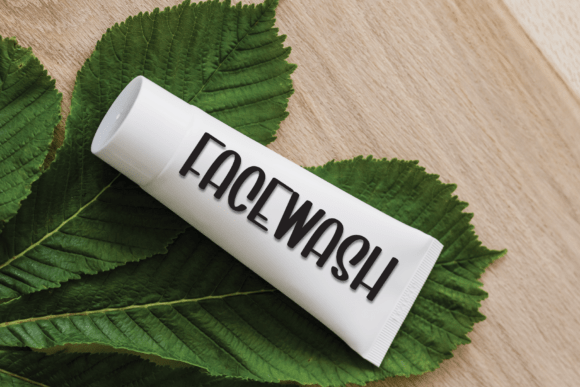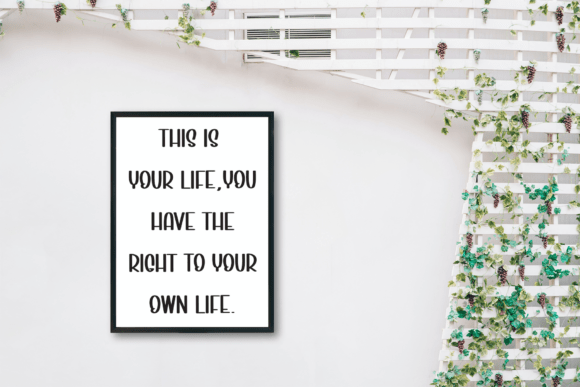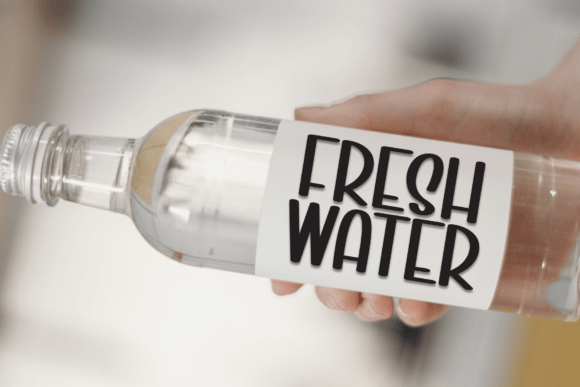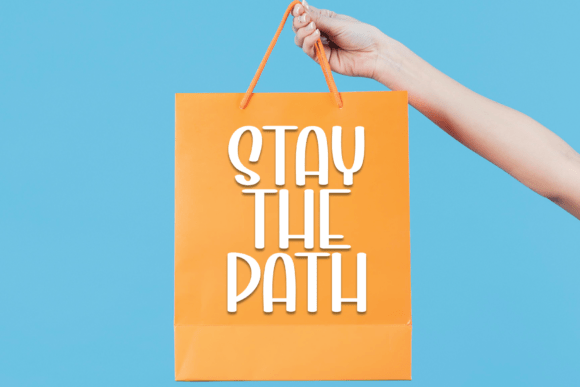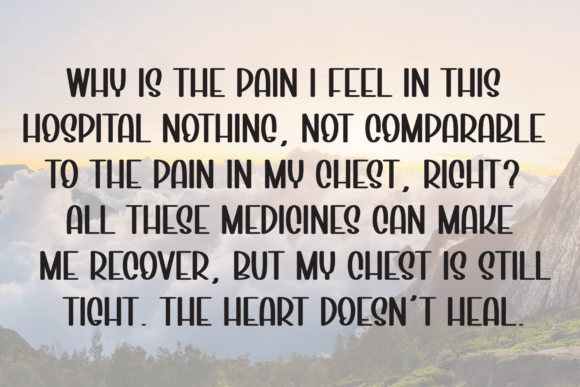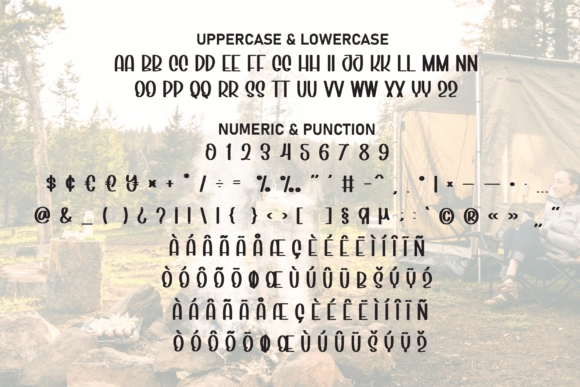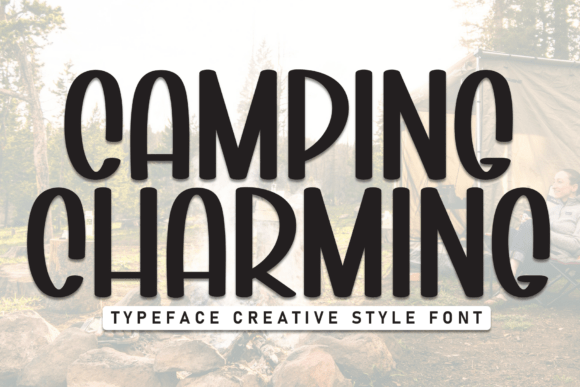
Camping Charming Font: A Bold and Expressive Display Font
Are you looking for a font that can add a touch of personality and power to your designs? Look no further than Camping Charming Font. This bold display handwritten font is designed to make a statement in everything from posters and branding to social media graphics. With its thick strokes and hand-drawn touch, it’s the perfect choice for designers and crafters who want to add a sense of authenticity and creativity to their work.
The Perfect Fusion of Personality and Power
Camping Charming Font brings a perfect fusion of personality and power to your designs. Its bold weight ensures that your message stands out loud and clear, while its organic and expressive style adds a sense of authenticity and creativity. This font is perfect for designers who want to create eye-catching headlines, titles, and captions that grab the attention of their audience.
Hand-Drawn Touch and Thick Strokes
One of the standout features of Camping Charming Font is its hand-drawn touch and thick strokes. The font has a unique, hand-crafted feel that gives it a personal and human touch. The thick strokes add a sense of boldness and confidence to your designs, making it perfect for creating striking headlines and titles.
Organic and Expressive Style
Camping Charming Font has an organic and expressive style that adds a sense of authenticity and creativity to your designs. The font’s hand-drawn touch and thick strokes give it a unique and personal feel that sets it apart from other fonts. This font is perfect for designers who want to create designs that are fresh, modern, and eye-catching.
Camping Charming Font is perfect for designers and crafters who want to add a touch of personality and power to their work. Whether you’re creating posters, branding materials, social media graphics, or craft projects, this font is sure to make a statement. Its bold weight and expressive style make it perfect for creating eye-catching headlines and titles that grab the attention of your audience.
Use Cases for Camping Charming Font
Camping Charming Font can be used in a variety of design projects, including:
- Posters and flyers: Create eye-catching posters and flyers that grab the attention of your audience.
- Branding materials: Use Camping Charming Font to create bold and expressive branding materials, such as logos and business cards.
- Social media graphics: Create striking social media graphics that stand out from the crowd.
- Craft projects: Add a touch of personality and power to your craft projects, such as handmade cards and scrapbooking pages.
Why Choose Camping Charming Font?
There are many reasons why you should choose Camping Charming Font for your design projects. Here are a few:
- Unique and expressive style: Camping Charming Font has a unique and expressive style that sets it apart from other fonts.
- Bold weight: The font’s bold weight ensures that your message stands out loud and clear.
- Hand-drawn touch: The font’s hand-drawn touch adds a personal and human touch to your designs.
- Perfect for designers and crafters: Camping Charming Font is perfect for designers and crafters who want to add a touch of personality and power to their work.
Camping Charming Font is a bold and expressive display font that’s perfect for designers and crafters who want to add a touch of personality and power to their work. With its thick strokes, hand-drawn touch, and organic and expressive style, it’s the perfect choice for creating eye-catching headlines, titles, and captions. Whether you’re creating posters, branding materials, social media graphics, or craft projects, Camping Charming Font is sure to make a statement.